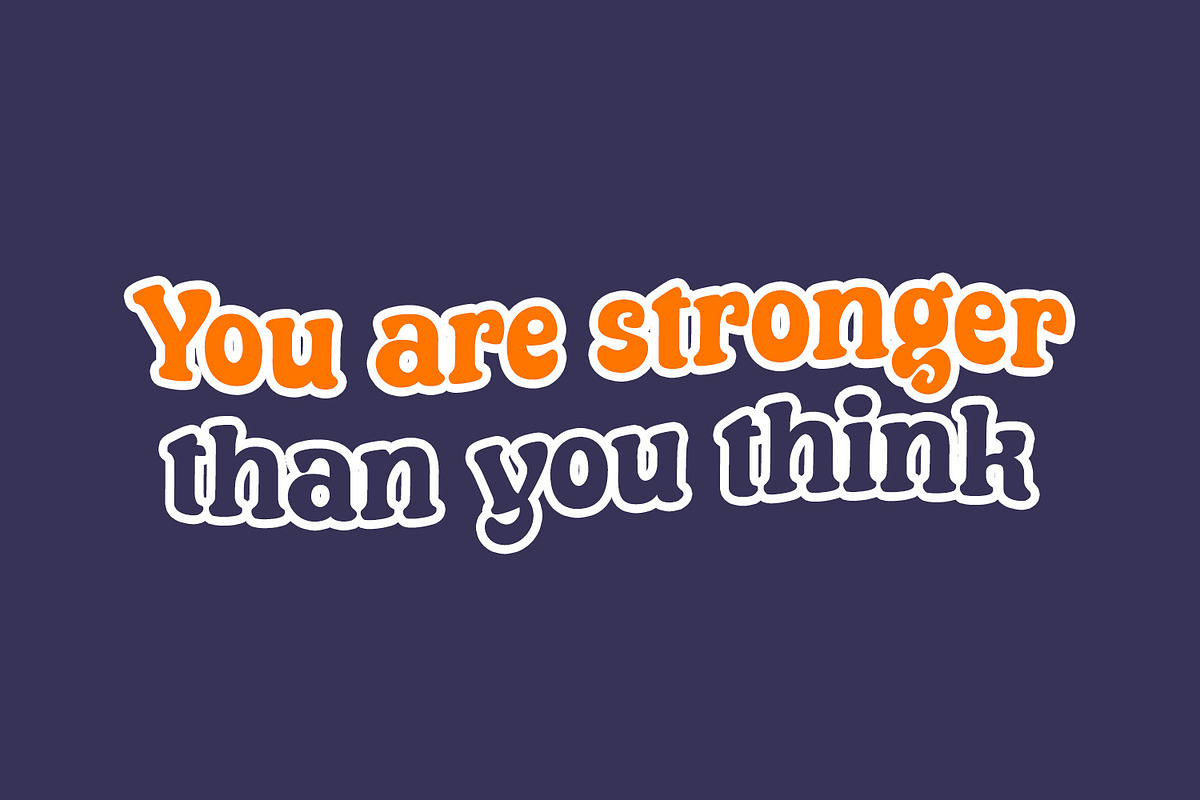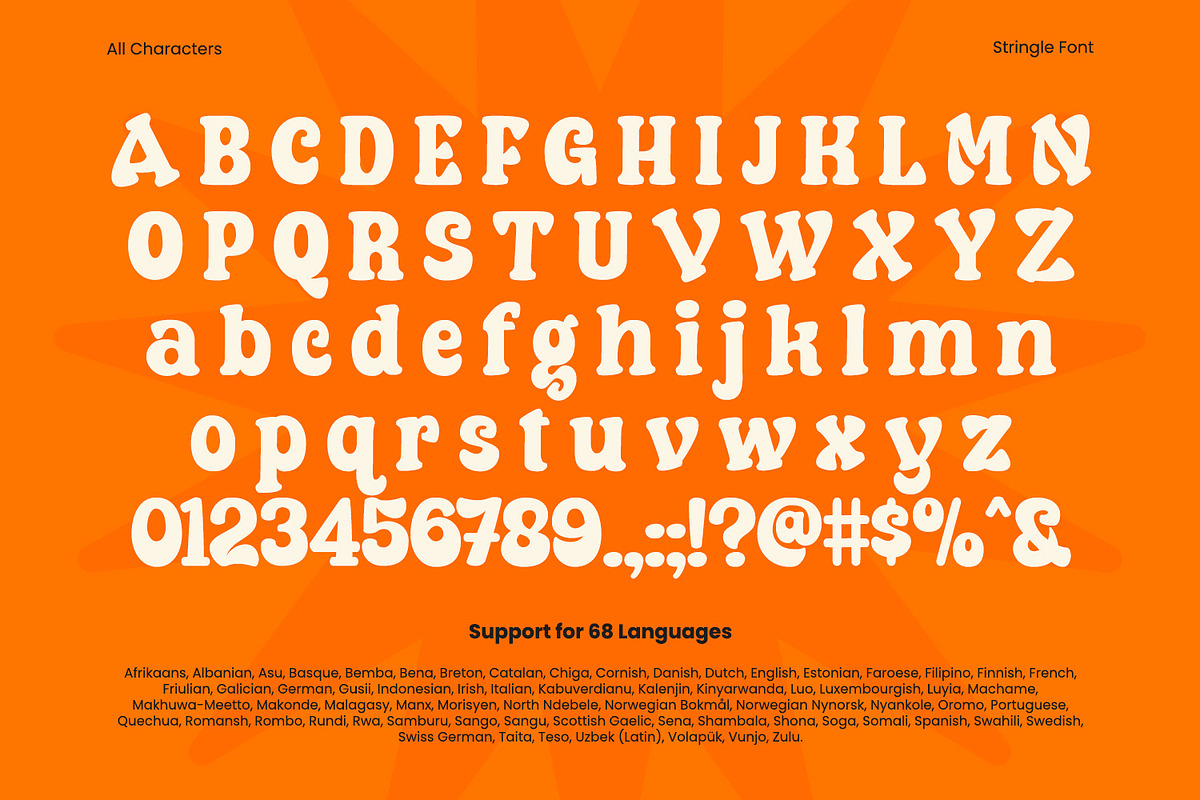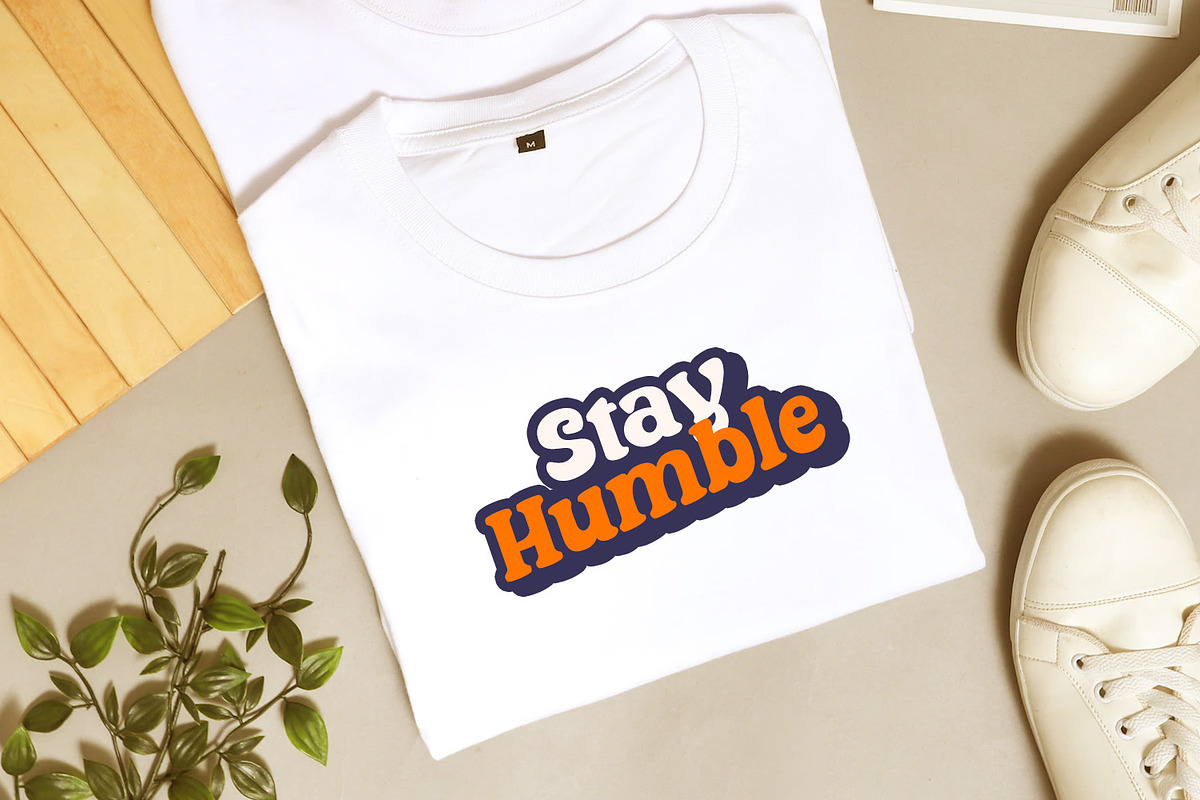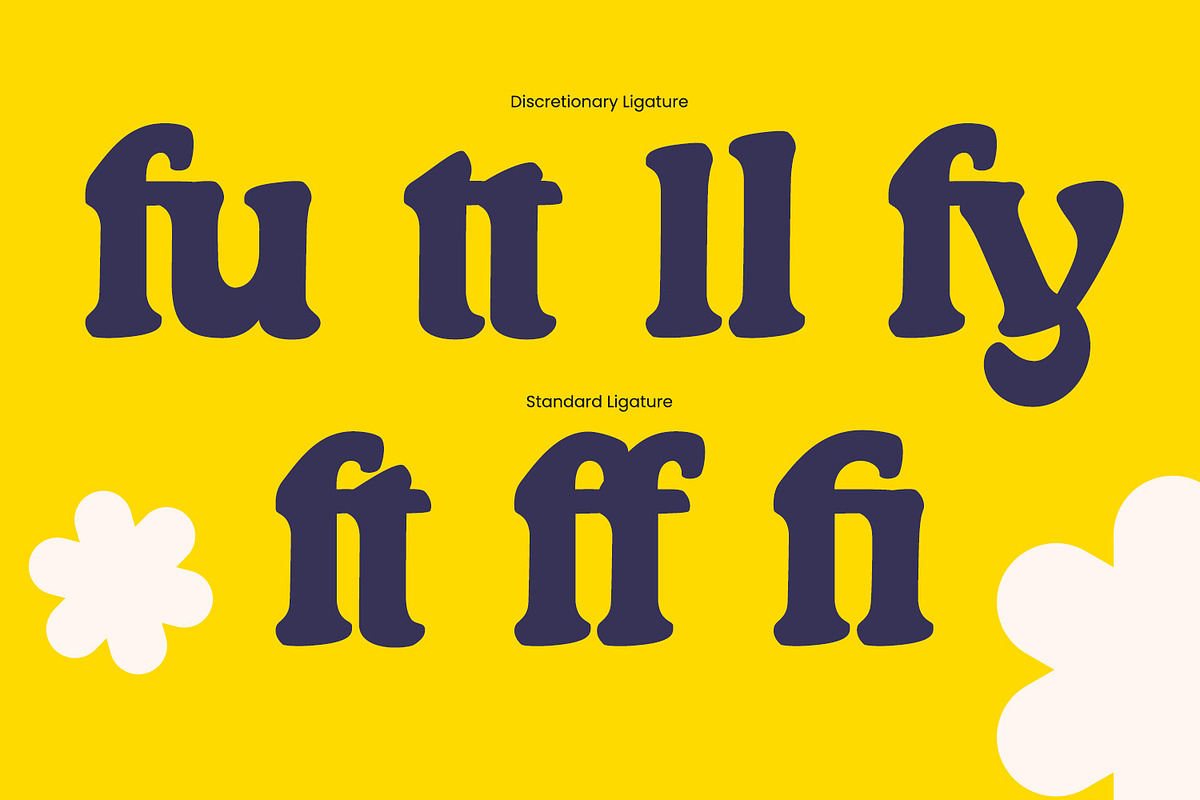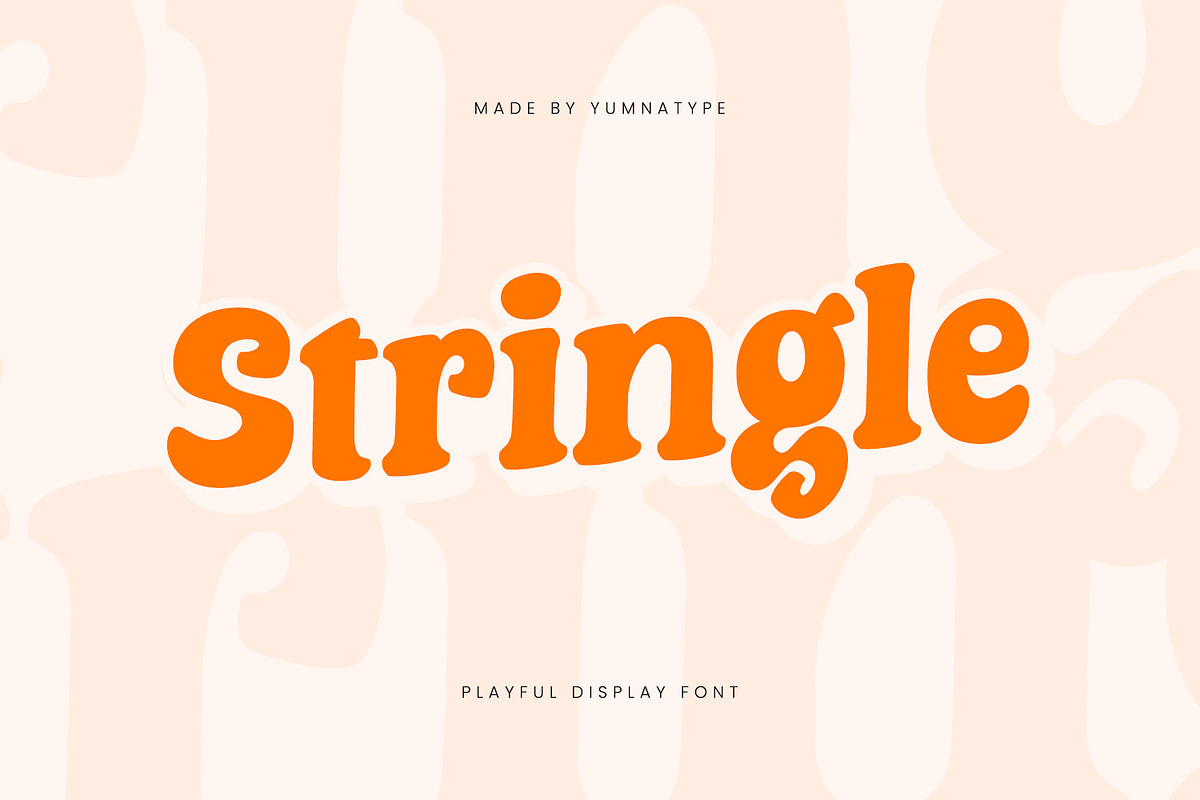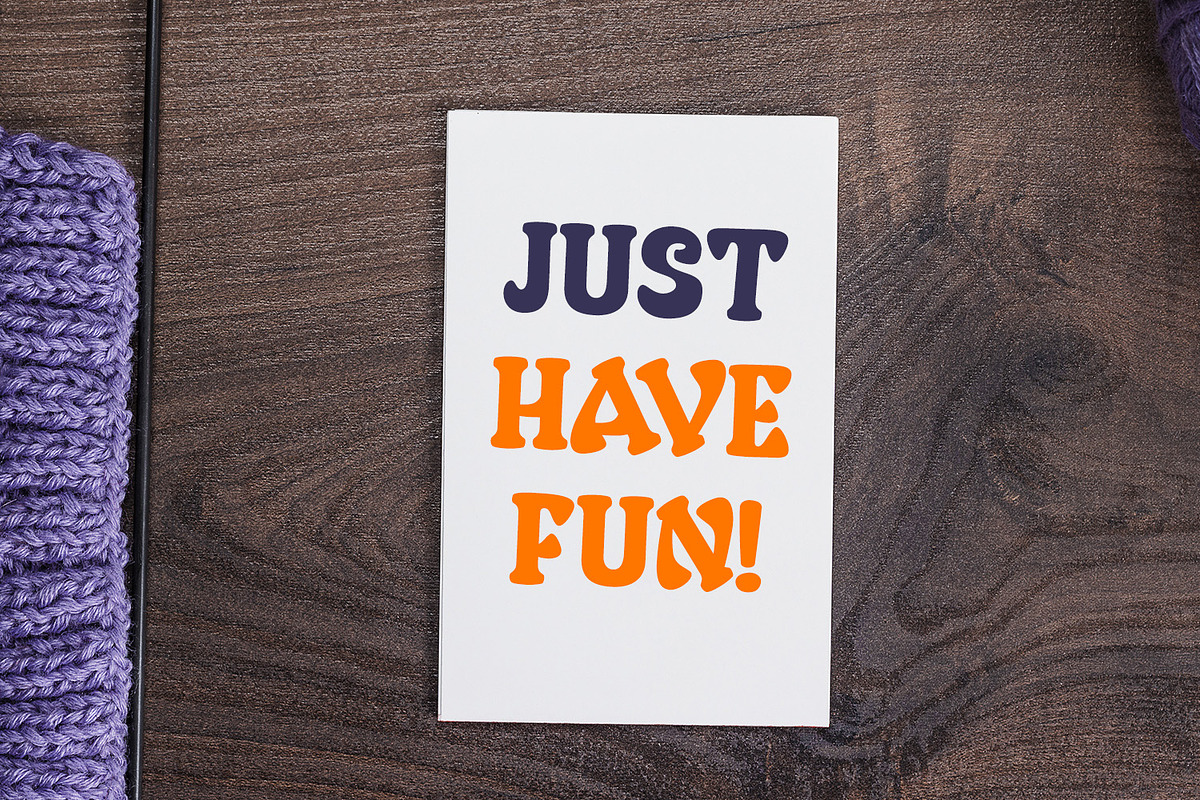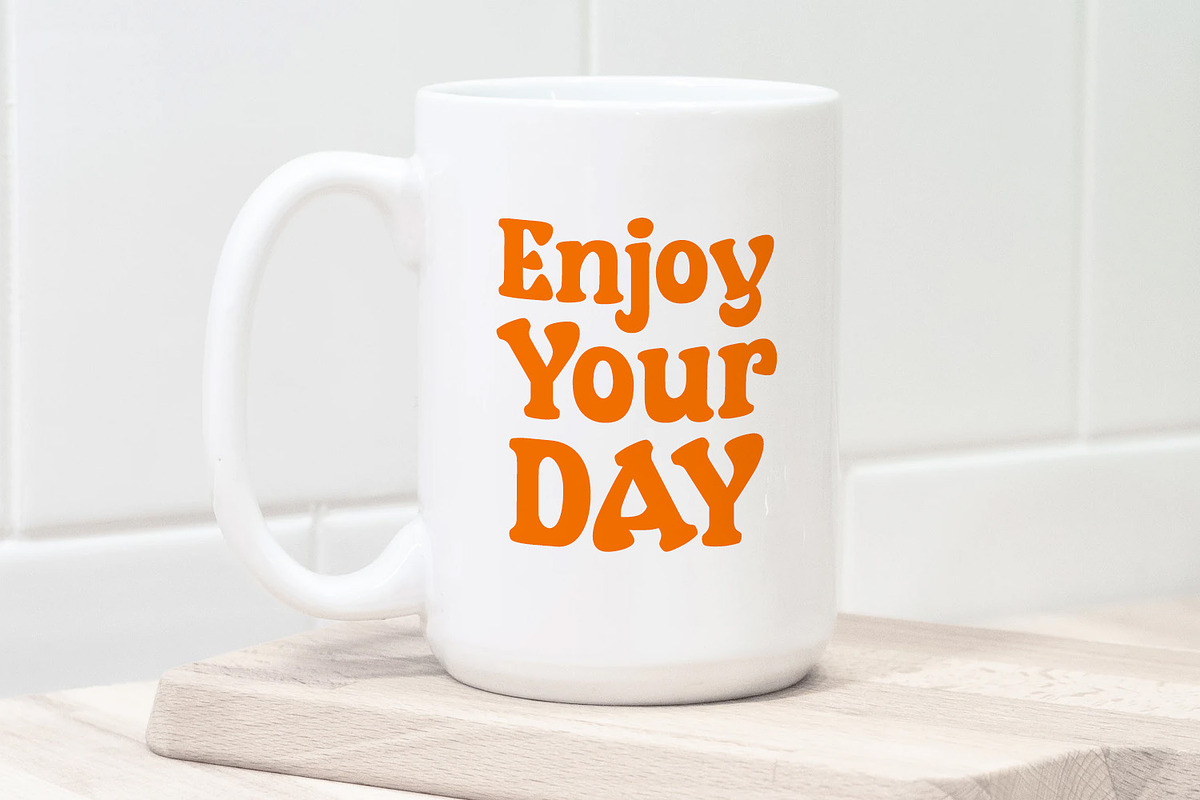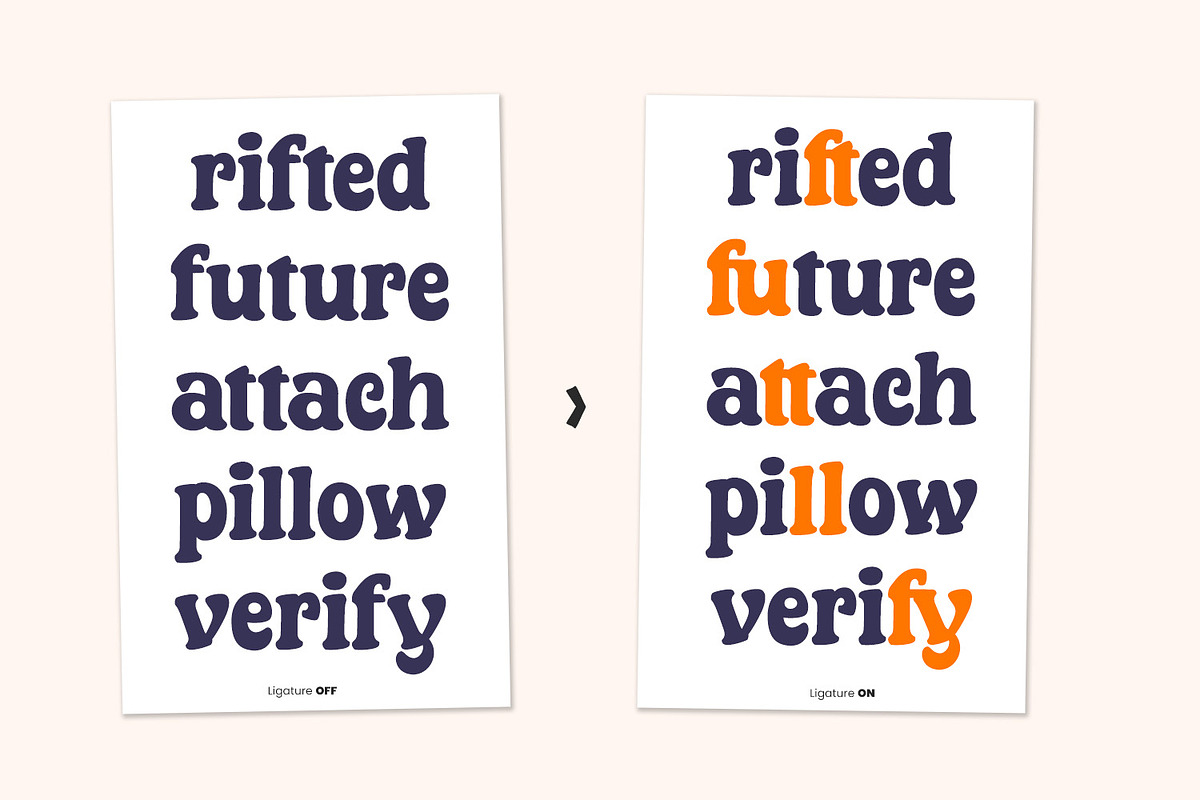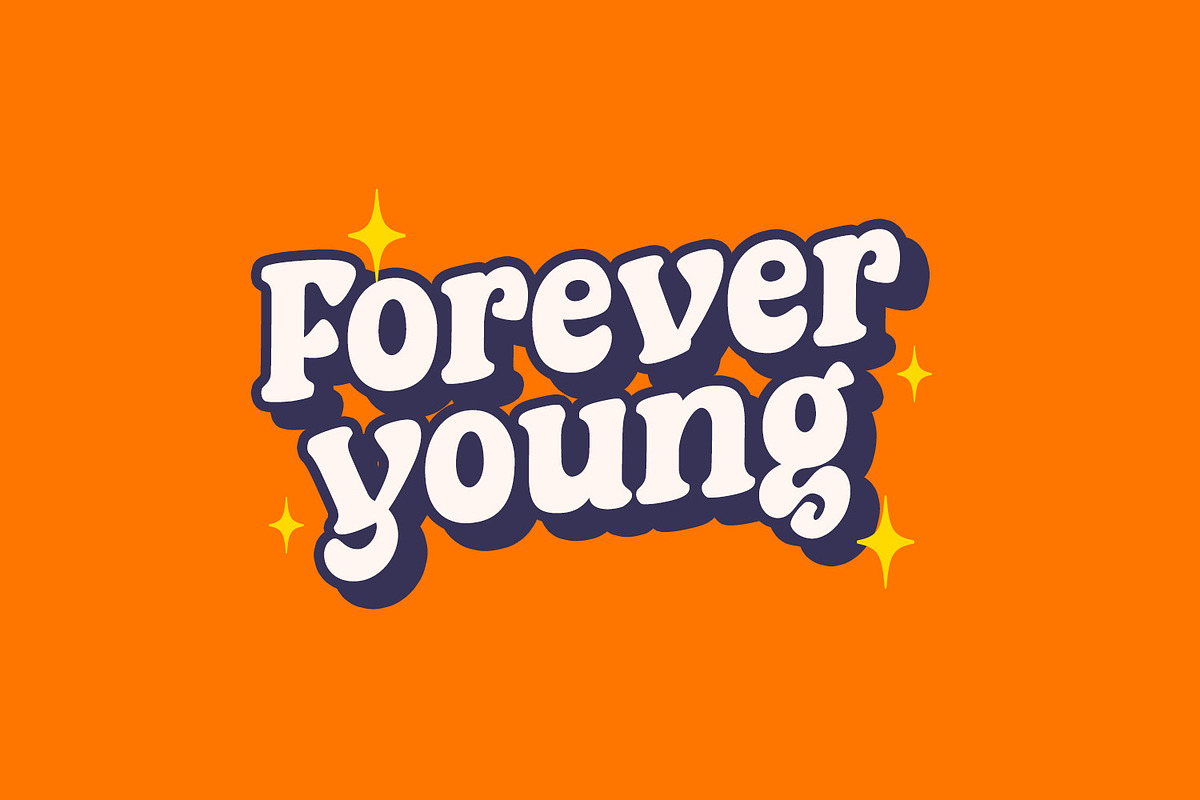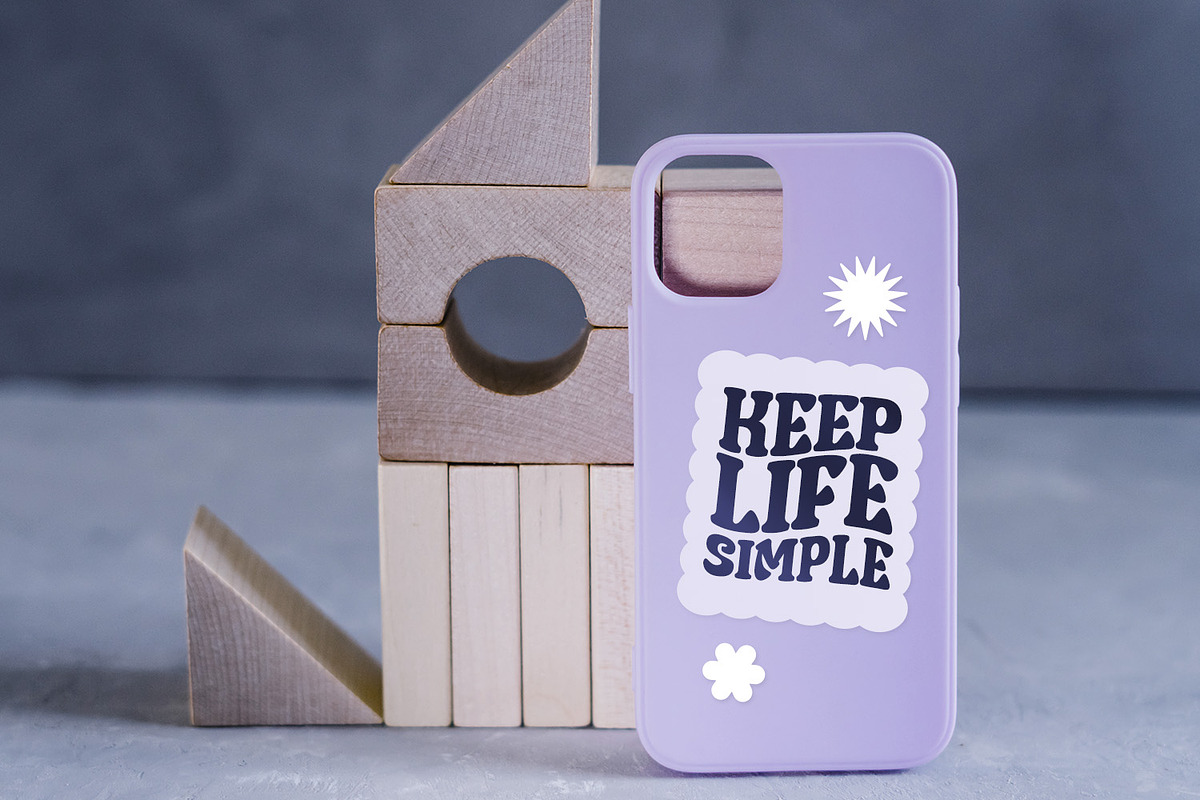
Stringle
Stringle is a delightful display font that brings a sense of fun and whimsy to any design. Created with rounded shapes that exude friendliness and approachability. Its rounded forms and thick weight also make it highly legible, even at larger sizes, ensuring your message is communicated clearly and effectively.
Stringle's playful design is ideal for adding a burst of energy and positivity to your work. Its rounded shapes give it a soft, while the substantial weight ensures they stand out boldly while maintaining a cheerful and inviting appearance. In addition, enjoy the features here.
Stringle fits in headlines, logos, posters, flyers, branding materials, print media, editorial layouts, and many more designs. Find out more ways to use this font by taking a look at the font preview.